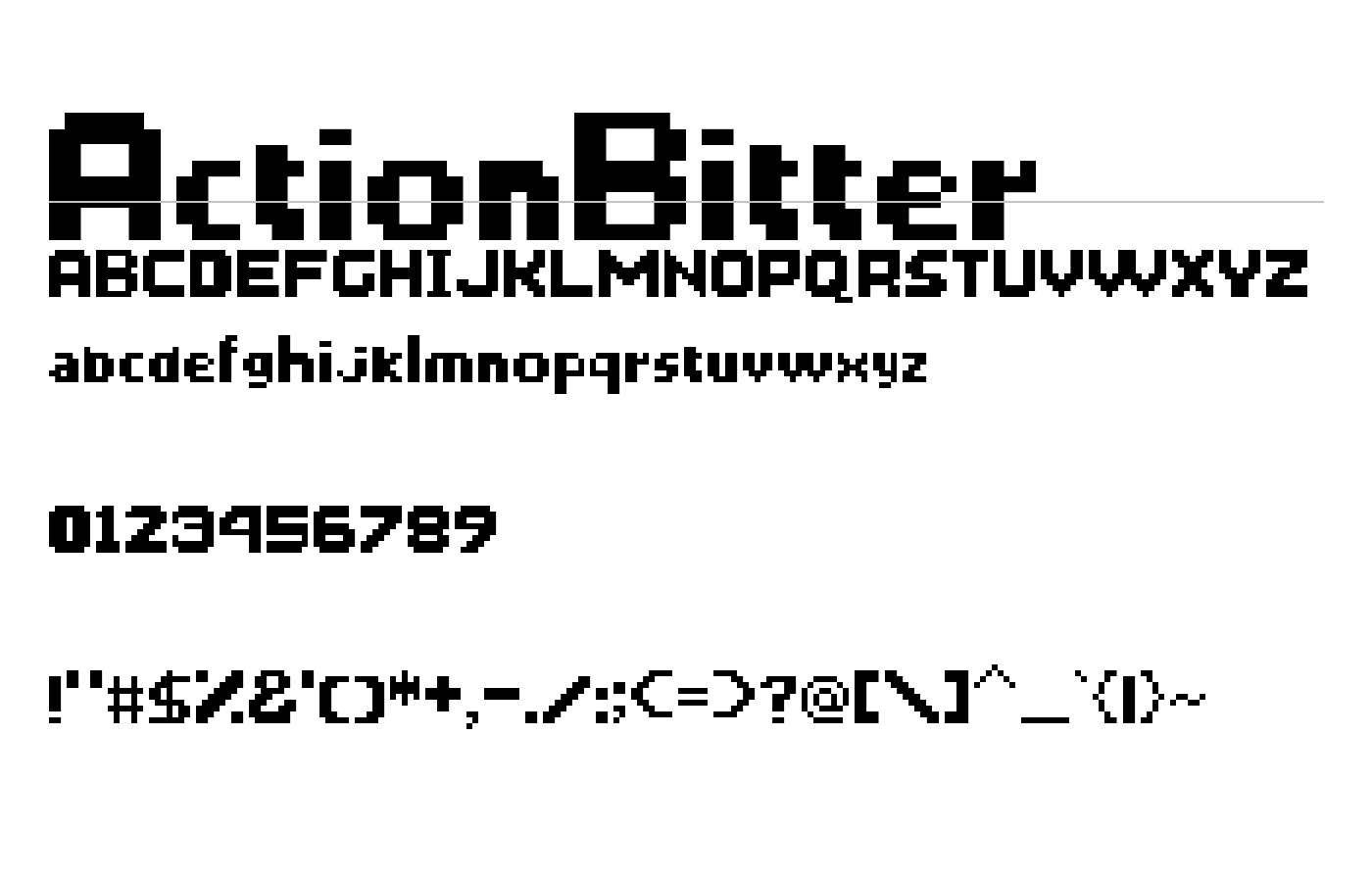
ActionBitter is a bold, pixelated sans serif font with a distinct retro, blocky style reminiscent of early digital or video game typography. Its rigid, square shapes and consistent stroke weight give it a strong, tech-inspired feel, ideal for playful or nostalgic branding and digital media. This font works best in headlines, logos, and projects seeking a vintage bitmapped aesthetic that grabs attention with its unique, chunky character.
ActionBitter Font
About ActionBitter Font